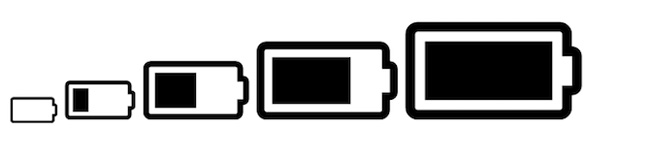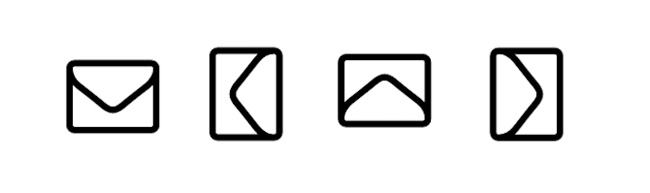
What Is Font Icon?
Icon Fonts are essentially the same as regular fonts - they define the look of a piece of text. However, the big difference between these two fonts is that the Font Icon does not contain letters and numbers, except for icons and icons. You may be confused and wonder what an interesting font that cannot be used to write letters and numbers.
Icont font is mainly used to create style for the website. Because they are based on vector icons, they can be resized, moved, styled and changed using CSS. This provides a great advantage over traditional design methods like images. The interface of a large number of icons can be changed with just a few lines of code. You don't need to edit any image, open Photoshop or upload new files, just write code.
The advantage of Icon Font is to reduce the number of HTTP Requests, help your website load faster and easily change the color and size of the icon.
How to Create Font Icons
I will use Font Awesome for these examples, you can also apply them to other font packages.
This is the minimum amount of HTML needed to create a website. However, the most important command LINE is:
This will load the Font Awesome stylesheet from its CDN. Without this command, your website will not know what Font Awesome is, so this command is very important. This stylesheet will handle all the hard work of embedding web fonts and making things easier.
Font Awesome icons are defined by CSS classes (CSS class) added to the i tag. They are chosen because they have no browser or default styles attached to them, so your icons will not be cluttered. Alternatively, you can add classes to the span tag, however this will upset your HTML.
It looks like this:
There are two classes needed for Font Awesome to work. The first class called fa, stands for Font Awesome. This class is required for all icons, regardless of which icon you use. The second class specifies the specific icon you want to use. This class is also a prefix of fa and because it is a jagged symbol, it is called a fa-cog. You can see a list of all the icons in Font Awesome on their website.
Try changing the icon from cog to anything else.
Once you know the basics, it's time for us to learn more.
If you don't want to write your own CSS, you can use the built-in styles in Font Awesome. You can use multiple classes to make larger icons:
You can use another useful class, which is fa-spin. This class will make your icons rotate and when combined with previous classes, you can create some nice effects. Here is the code:
After entering the code, you will get the result as shown:
It's easy to rotate icons - use class fa-rotate:
The number at the end defines the rotation for the icon but cannot be moved. You are limited to 90, 180 or 270 degrees.
The last trick you can do is to stack the icons on each other. The fa-stack class allows you to combine two or more icons together. Here is the code:
After entering the code, you will get the following result:
When you start to combine all classes together, creativity is truly endless.
Customize CSS
Because Icon Fonts are just fonts, you can format them with CSS like any other element. Use CSS3 to create moving icons:
This CSS is quite basic but brings great impact.
You can create something special if you want:
This will repeat a bit to reduce the file size on the site. Here is the HTML:
Like the previous example, this example uses CSS3 effects. An effect with a fade name is created and each icon performs this effect with different time. You can get creative with those icons and CSS3.